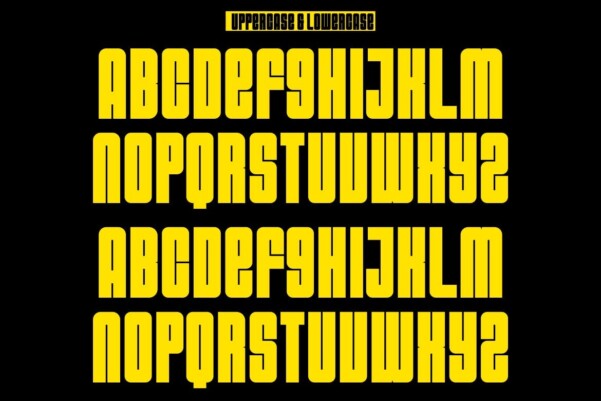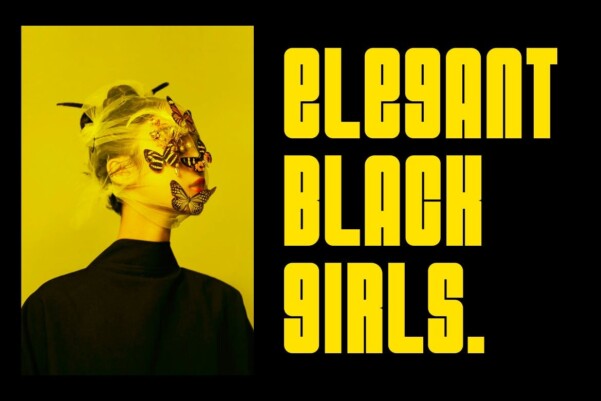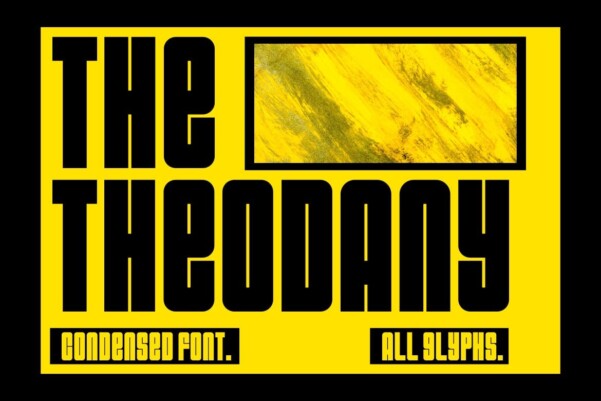
The Theodany Font
Designer: maxhendra27
The Theodany Font is an authentic and unique condensed font perfect for the needs of professionals and product brands. This font is suitable for all branding projects such as quotes, logos, blog headers, posters, ribbons, letters, invitations, stationery, etc. It is designed to be versatile and flexible and can be used on a variety of projects and media. Extraordinary in a variety of contexts
The Theodany Bold